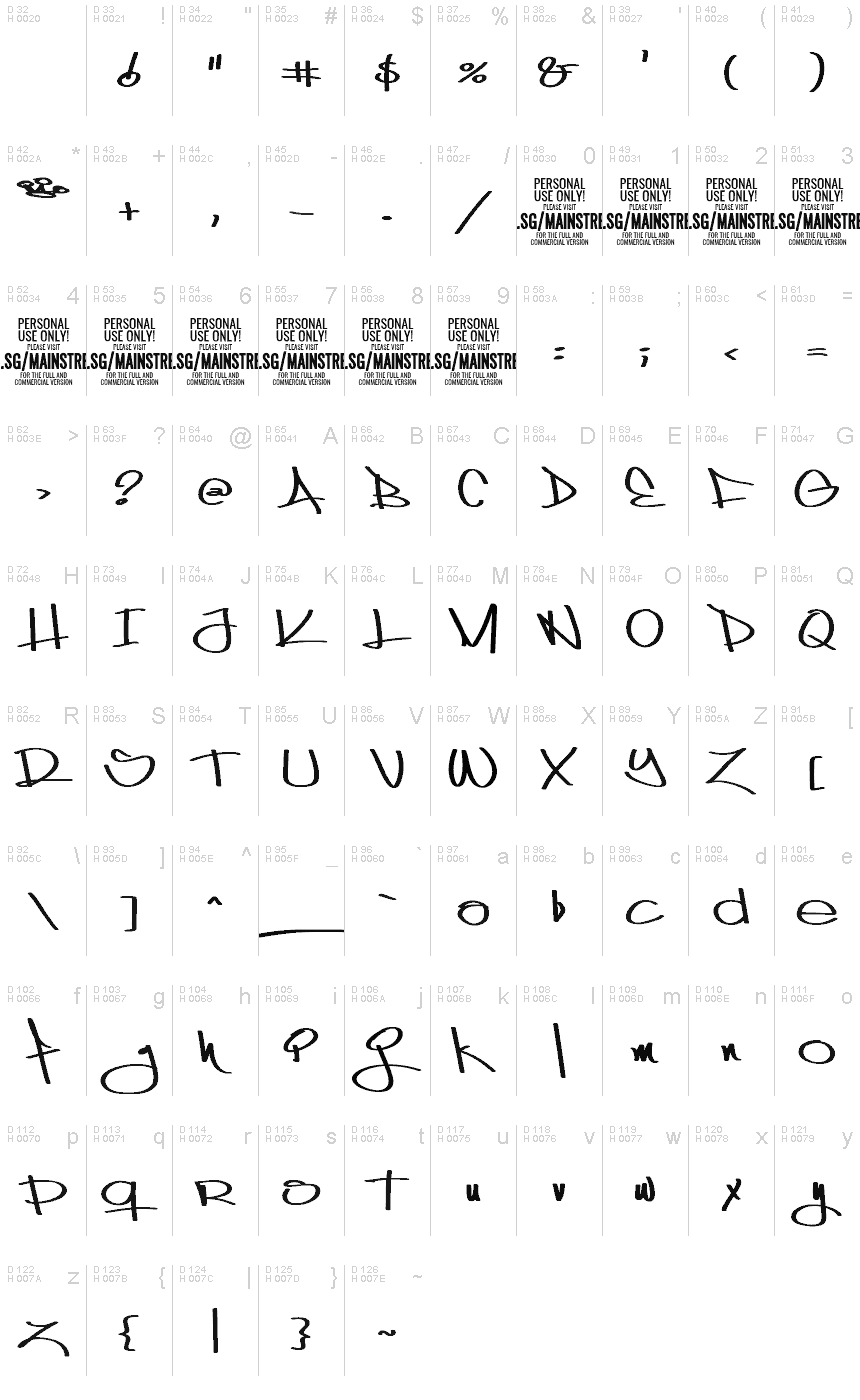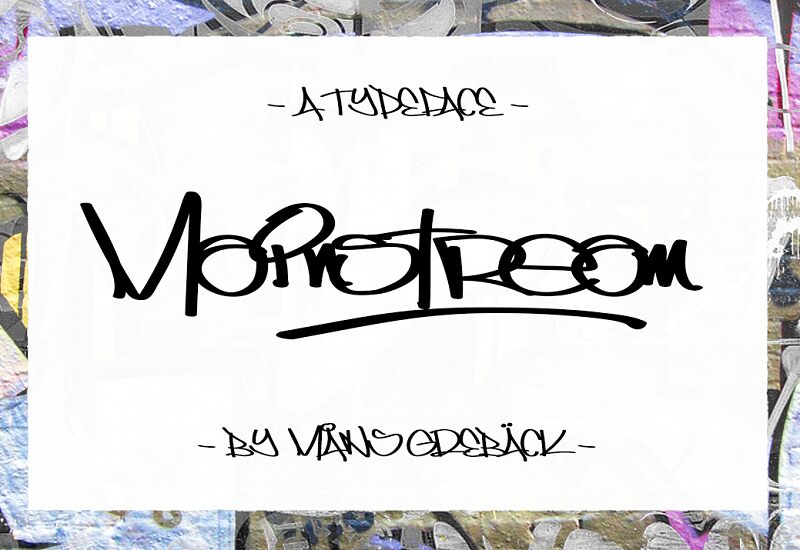
Mainstream, a captivating graffiti-inspired font crafted by the talented designer Måns Grebäck, exudes a raw, expressive energy that commands attention. This expanded typeface boasts an intriguing blend of organic curves and angular strokes, creating a dynamic and visually striking appearance. Its bold, distinctive letterforms possess a captivating sense of movement, evoking the spontaneity and rebellious spirit of urban street art.
The Mainstream font's versatility shines through, making it a compelling choice for a wide range of design applications. From bold headlines and impactful logos to eye-catching typography in branding, packaging, and editorial layouts, this font has the power to elevate any project with its unapologetic and memorable aesthetic. Its expressive nature lends itself particularly well to projects that seek to convey a sense of youthful energy, edginess, or a rebellious spirit.
Write underscores after any word to make an underline.
Example: Mainstream_
Write * after any letter to put a crown on it.
Example: Mainstre*am